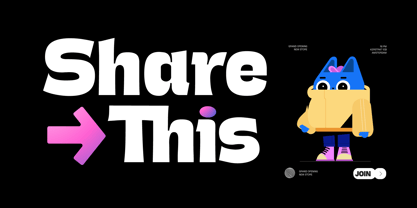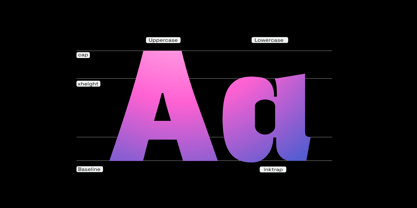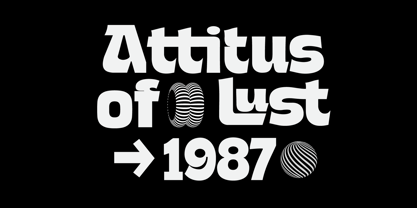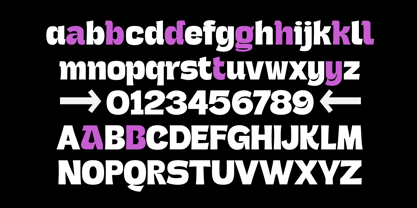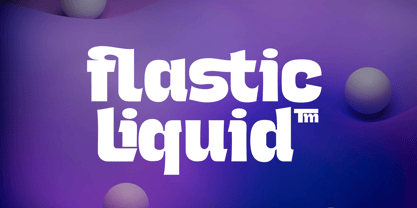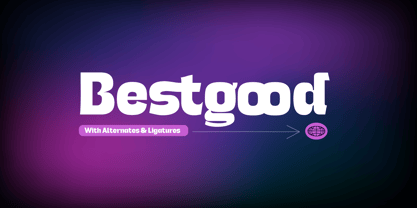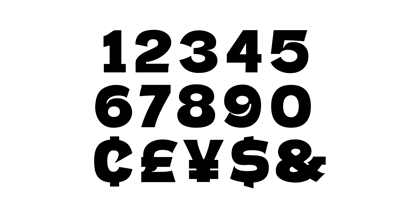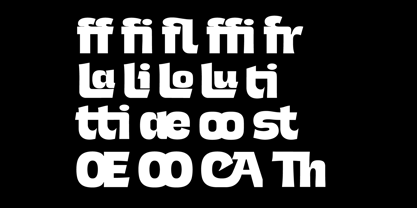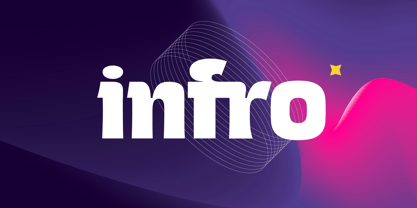
Fd Infro
by Fortunes Co
The Fd Infro Font Family was designed by Ramandhani Nugraha and published by Fortunes Co. Fd Infro contains 1 styles.
Infro is a bold, modern serif typeface designed for impactful headlines and branding. With its strong geometric structure, smooth curves, and subtle ink trap details, this font blends retro aesthetics with a futuristic edge. The thick strokes ensure high readability, while the playful, slightly exaggerated letterforms add a dynamic and energetic feel.
Designers: Ramandhani Nugraha
Publisher: Fortunes Co
Foundry: Fortunes Co
Design Owner: Fortunes Co
About Fortunes Co